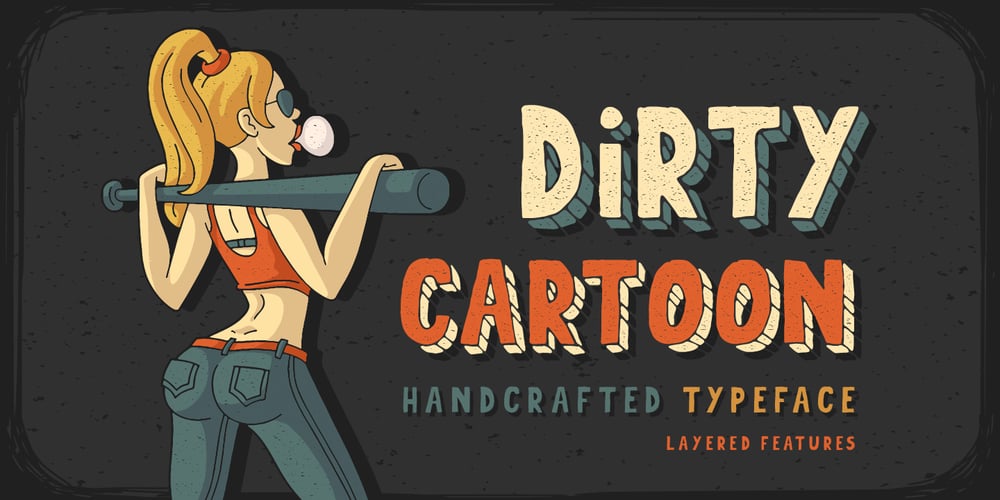
Dirty Cartoon Font Family was designed by Gleb Guralnyk and published by Gleb Guralnyk. Dirty Cartoon contains 4 styles and family package options. Hi! Let me introduce a “Dirty Cartoon” hand drawn textured typeface. It has four different font variations to make it easy to use and recolor.